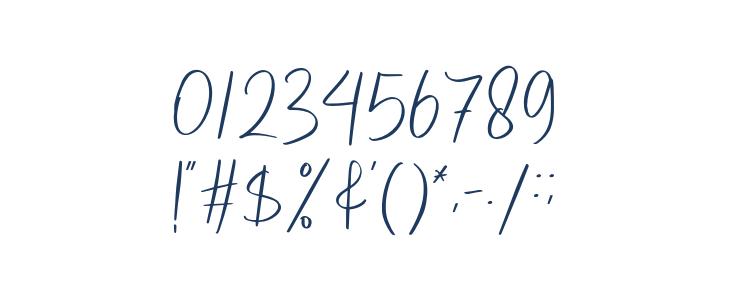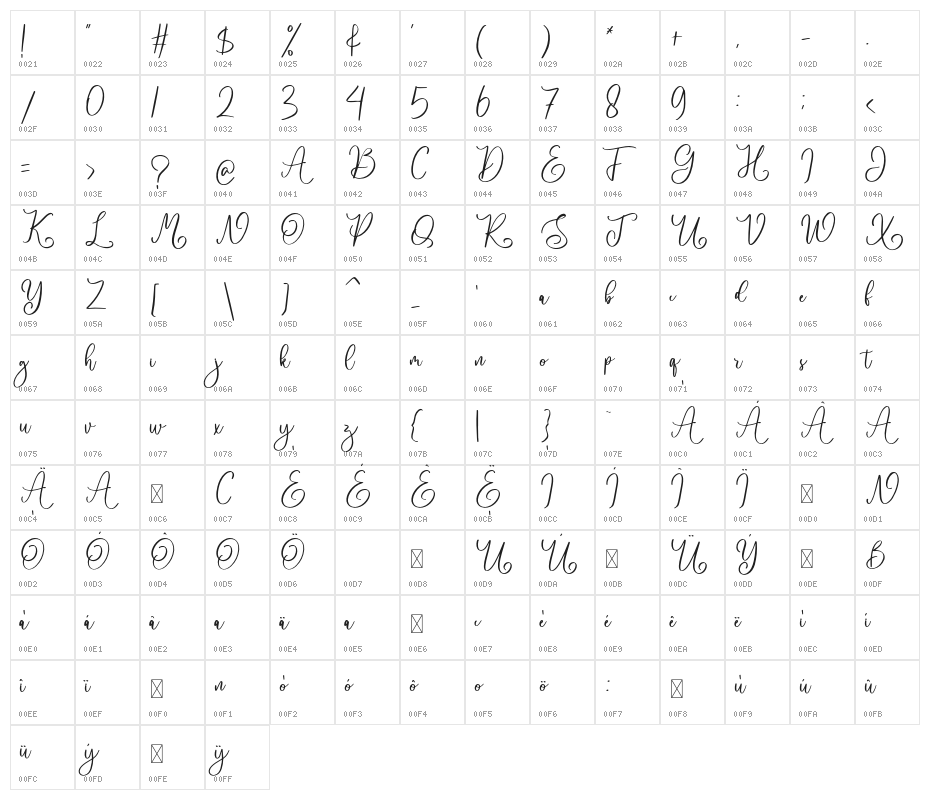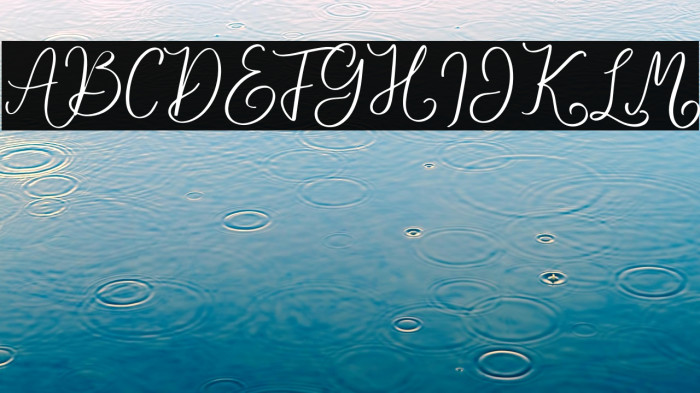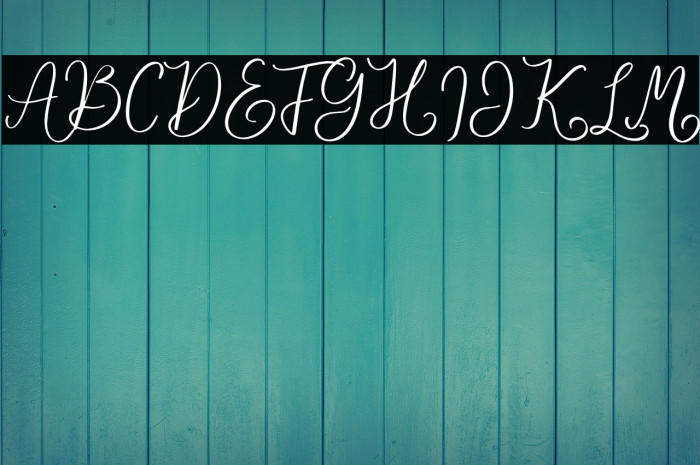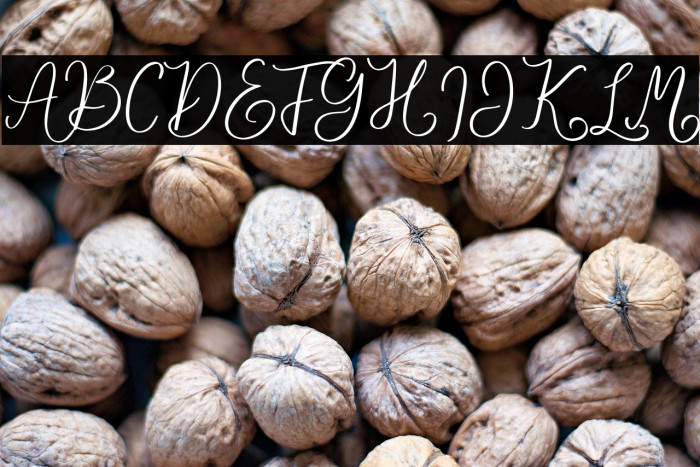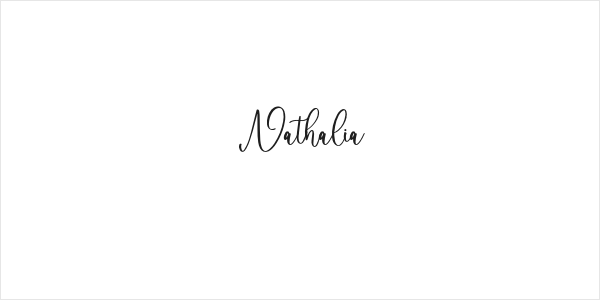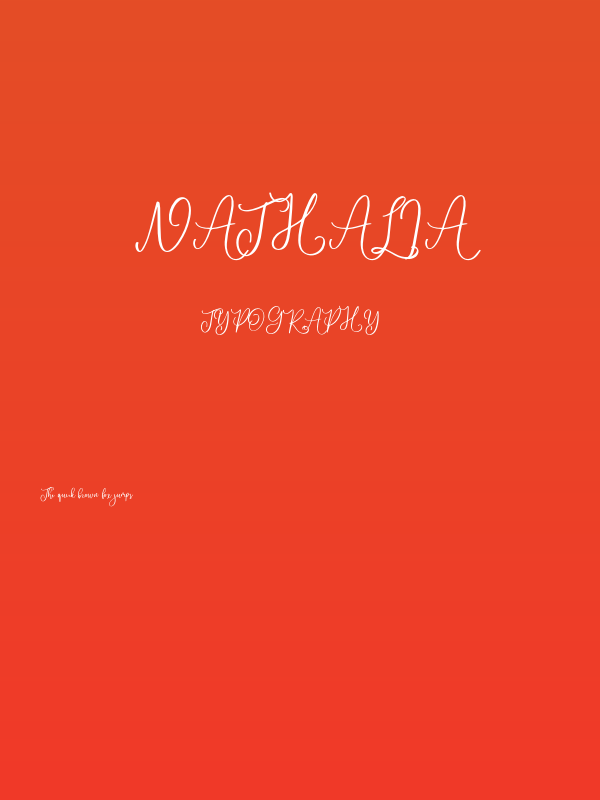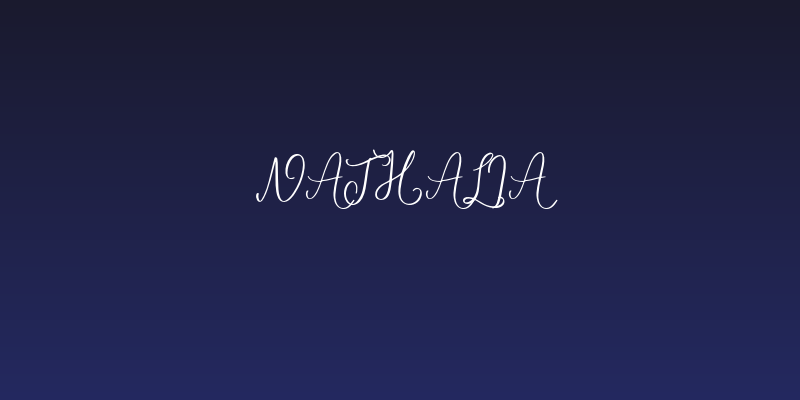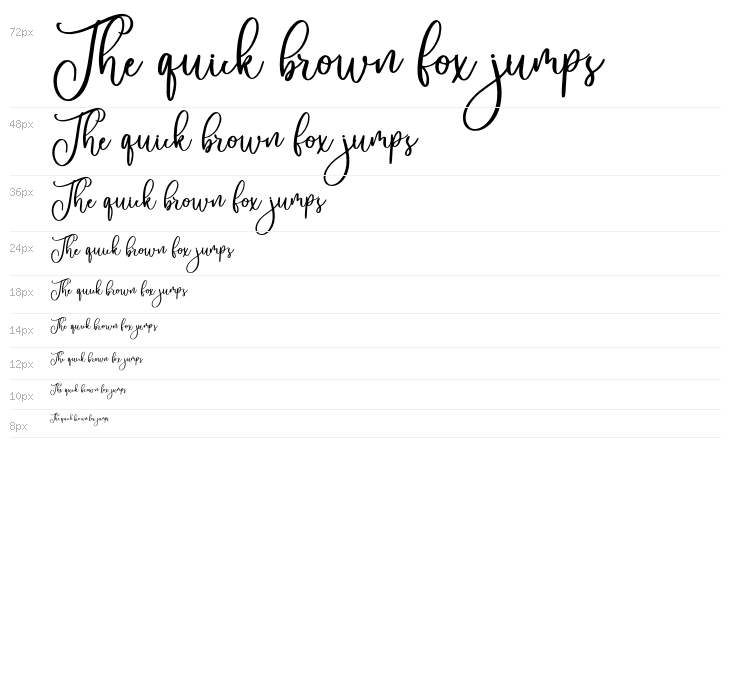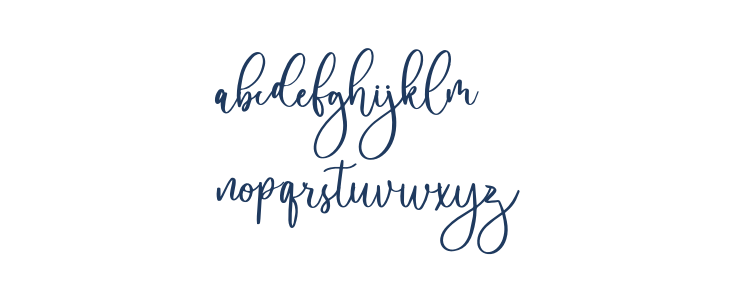
Nathalia Font
Nathalia Description
This elegant script font features flowing, interconnected letters that exude a sense of sophistication and grace. The uppercase letters are tall and slender, with delicate loops and swashes that add a touch of flair. The lowercase letters maintain a consistent style, with smooth curves and a slight slant that enhances readability. The numerals are well-proportioned, matching the overall aesthetic of the alphabet. Special characters are thoughtfully designed, integrating seamlessly with the rest of the font. This font is perfect for projects that require a personal, handwritten touch, such as invitations, greeting cards, and branding materials.
| Overall Style | Elegant, Decorative |
| Use Case | Headlines, Invitations, Branding |
| Proposed Projects | Ideal for wedding invitations, elegant branding, personalized stationery, and decorative signage. |